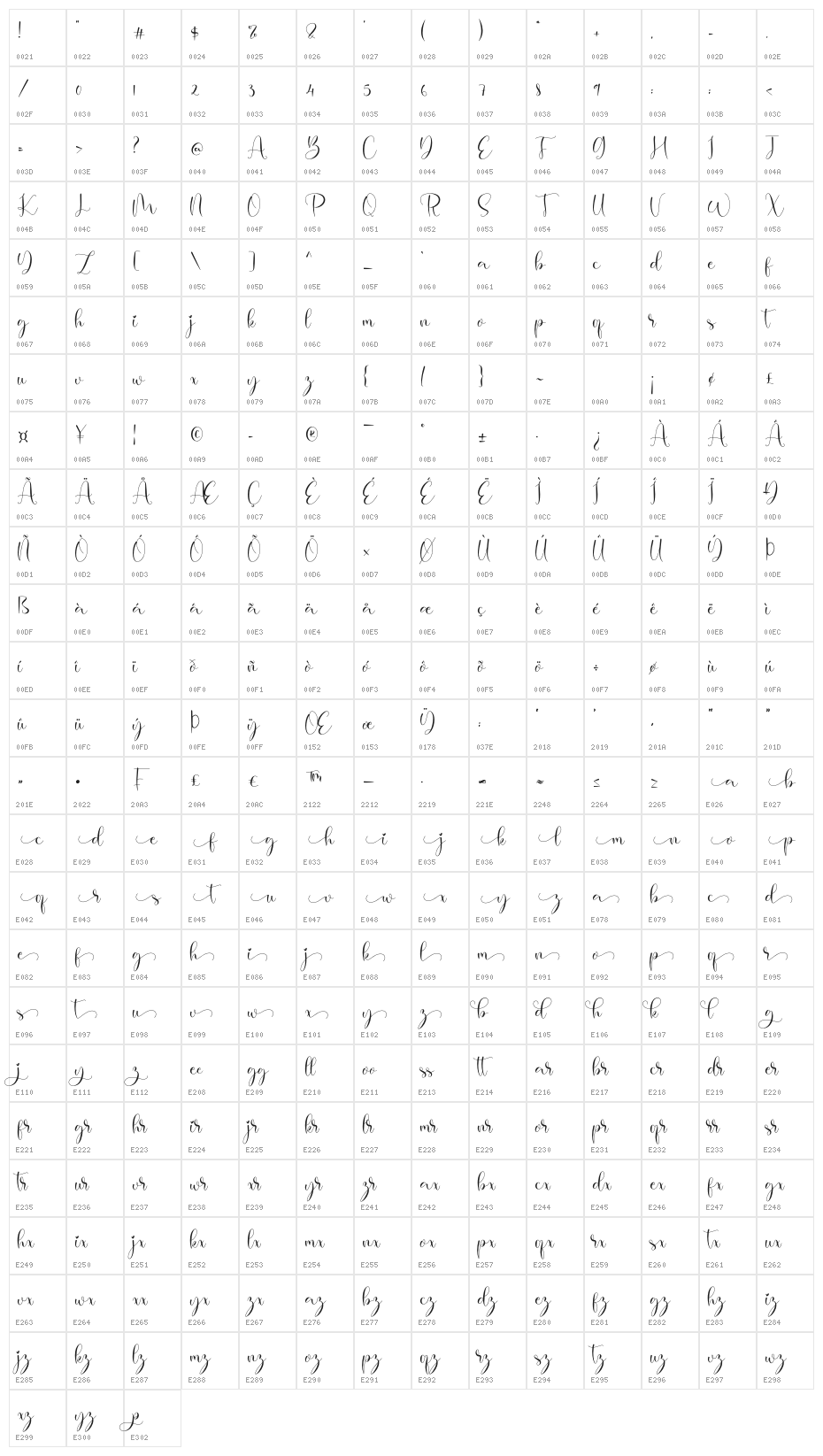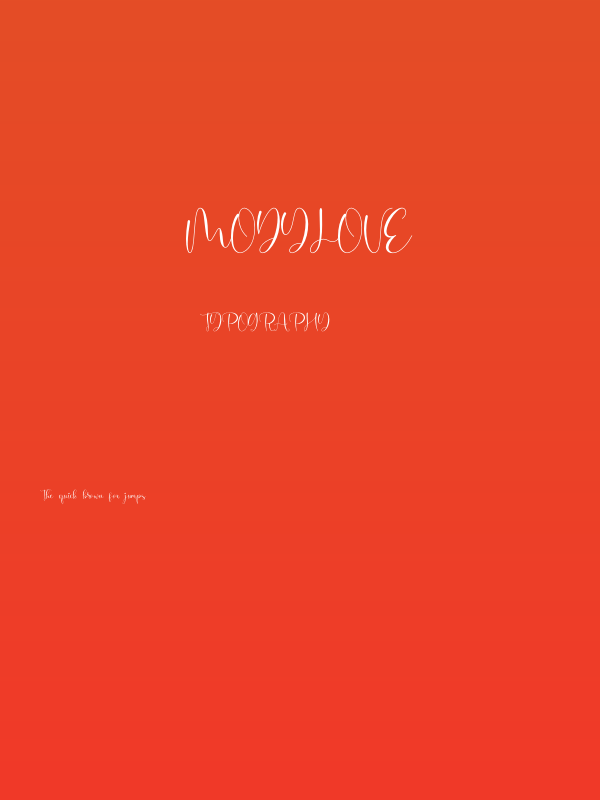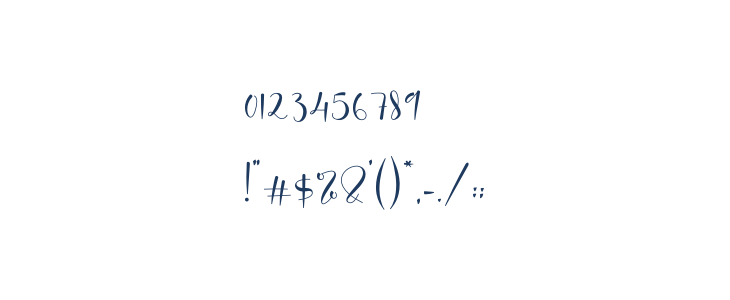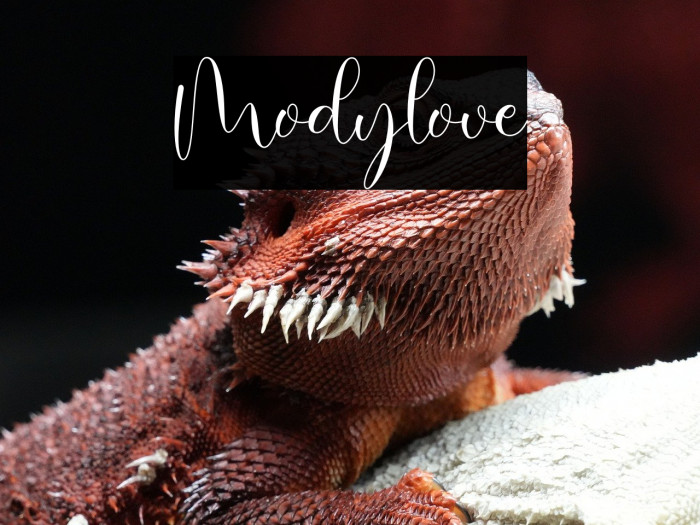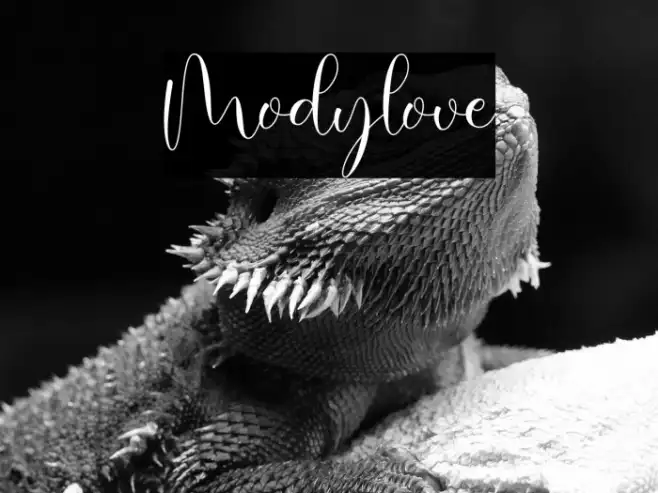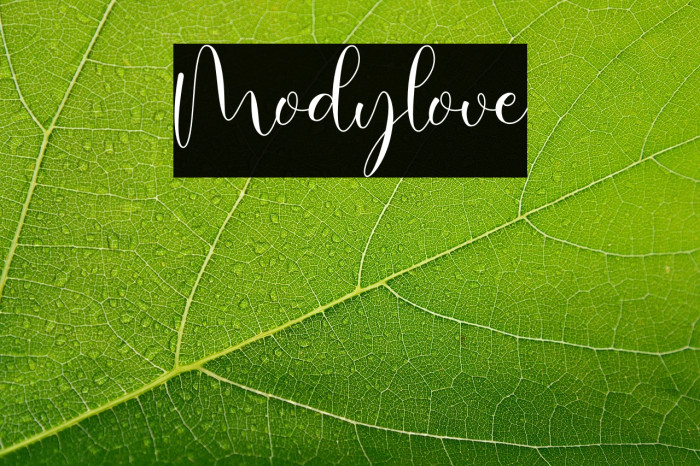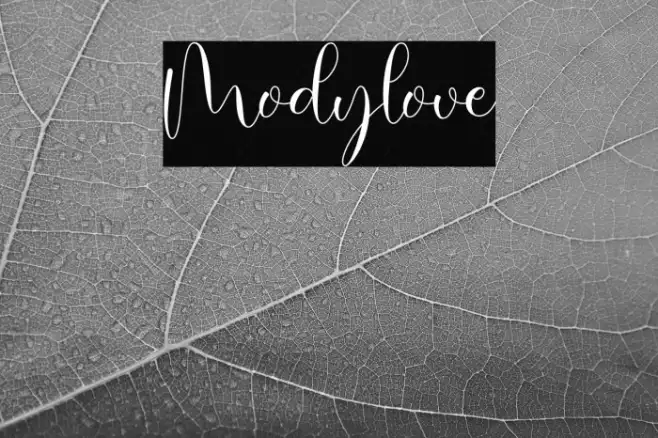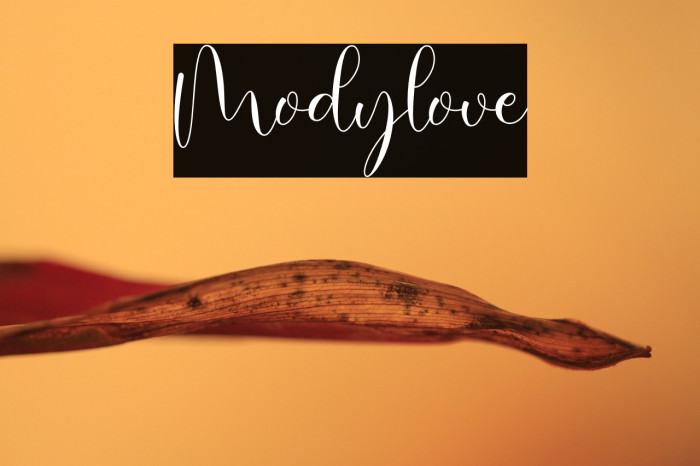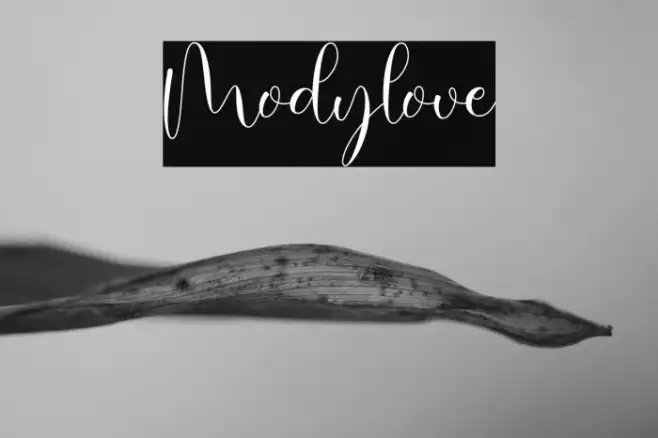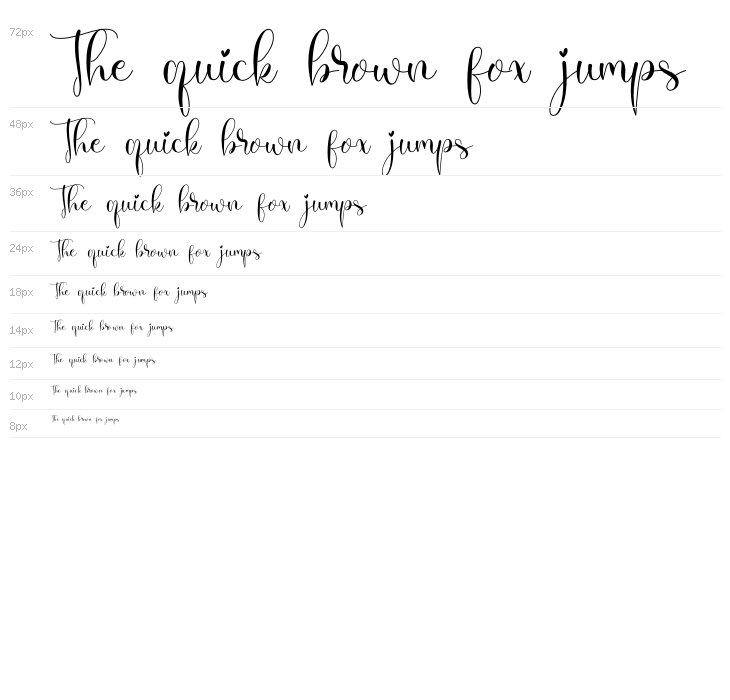
Modylove Font
Modylove Description
This font features an elegant and flowing script style, characterized by its graceful curves and loops. The uppercase letters exhibit a sophisticated flair with extended strokes and a sense of movement, while the lowercase letters maintain a consistent, fluid connection. The numerals are designed with a similar elegance, ensuring a cohesive look throughout. Special characters are thoughtfully integrated, maintaining the overall aesthetic. This font is perfect for projects that require a touch of elegance and sophistication, such as wedding invitations, branding, or high-end product packaging.
| Overall Style | Elegant, Sophisticated |
| Proposed Projects | Ideal for wedding invitations, luxury branding, and elegant product packaging. |